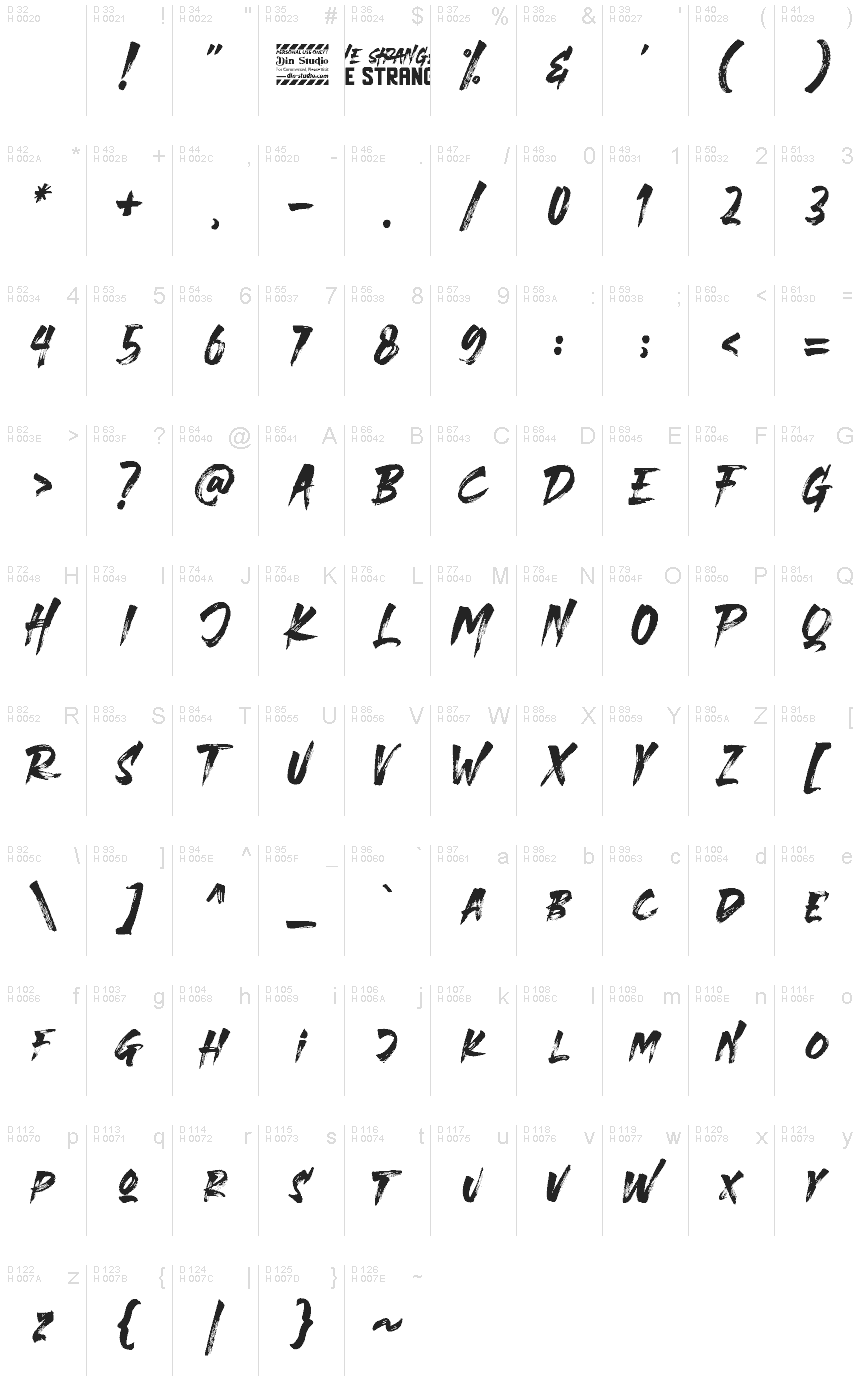
The Stranger font by Din Studio combines brush and sans elements for a unique, bold, and textured effect. Designed with a natural brush, its grunge and expressive look brings raw energy to any project. Perfect for designers seeking an edgy and contemporary urban aesthetic, this free font adds beauty and power to your designs.
Use The Stranger for branding projects, eye-catching quotes, or t-shirt printing that demands attention. It’s also great for posters, album covers, social media graphics, book covers, website headers, product packaging designs, flyers, or magazine spreads.
Features include:
- Alternates
- Ligatures
- Swashes